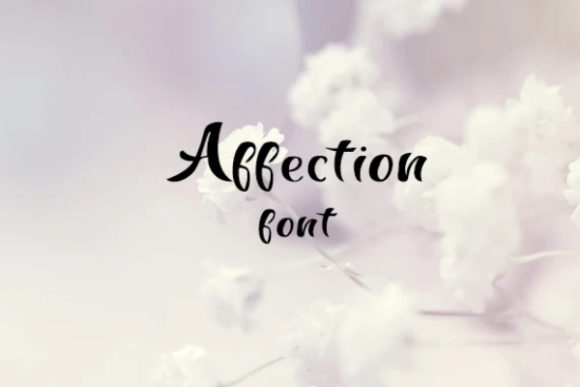
The Magic of Affection Font: Elevating Your Designs with Elegance
I still remember the time I was working on a DIY project for a client’s wedding invitation. I had the perfect design concept, but I was struggling to find a font that would match the elegance and whimsy of the event. That’s when I stumbled upon Affection Font, a magical handwritten script that instantly elevated my design. In this article, I’ll share my experience with Affection Font, its features, and how to make the most of it in your creative projects.
An Honest Review of Affection Font
As a designer, I’m always on the lookout for fonts that can add a touch of personality to my projects. Here’s what I love about Affection Font:
- ✨ Elegant and refined: Affection Font has a sophisticated feel that’s perfect for high-end designs.
- ✅ Highly versatile: It works beautifully for both digital and print projects, from social media graphics to wedding invitations.
- 💫 Whimsical touch: The font’s handwritten nature adds a playful, personal touch to any design.
However, no font is perfect, and Affection Font has a few quirks:
- 🤔 Limited character set: While the font has a wide range of characters, it may not have every special character or glyph you need.
- ⚠️ May require adjustments: Depending on the design, you may need to adjust the font size, spacing, or kerning to get the desired look.
The Story Behind Affection Font
Affection Font was created by a talented type designer who wanted to craft a font that would evoke emotions and add a touch of elegance to any design. Inspired by classic calligraphy and handwritten scripts, Affection Font is the result of careful attention to detail and a passion for beautiful typography.
| Font Name | Affection Font |
| Author | carina2 |
| What is Affection Font best used for? | Affection Font is perfect for designs that require a touch of elegance and whimsy, such as wedding invitations, social media graphics, and DIY projects. |
| Is Affection Font suitable for body text? | While Affection Font is beautiful, it’s best used for headlines or short paragraphs. Its elegant nature may not be suitable for long blocks of body text. |